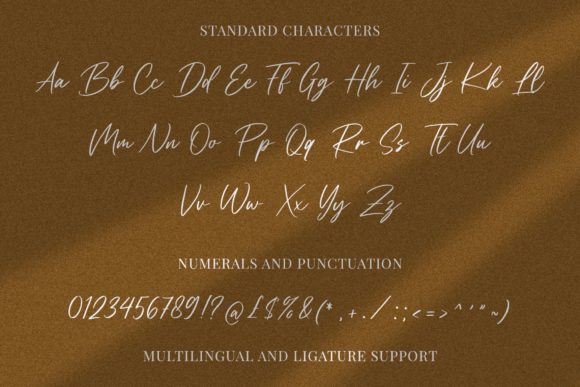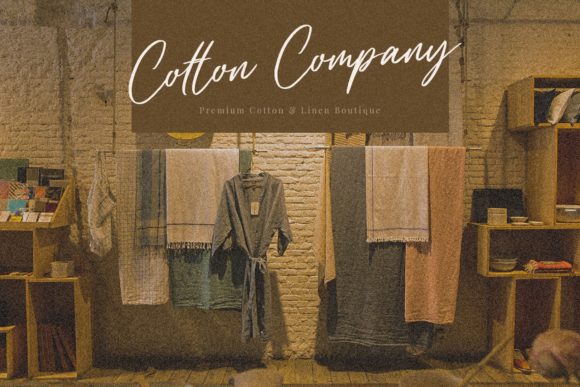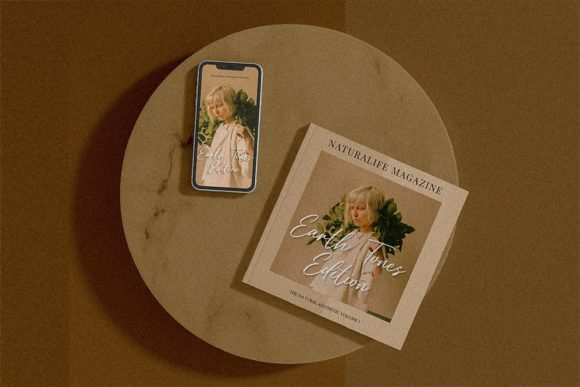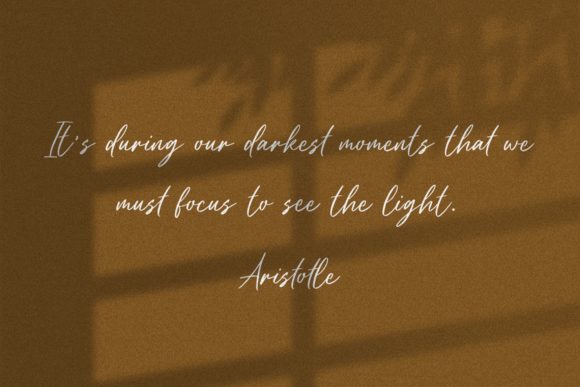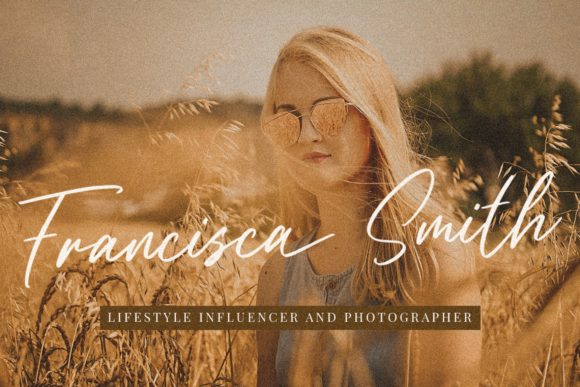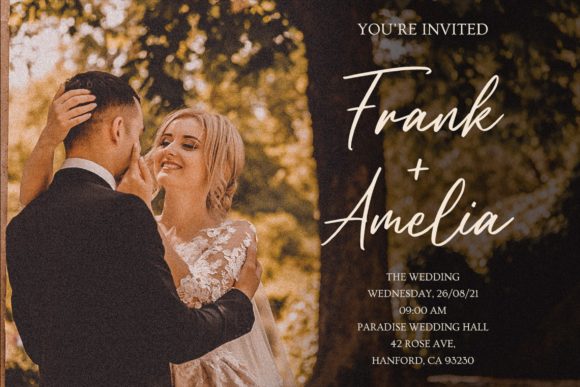
Billy Holiday Font: Elevate Your Designs with Elegance and Timeless Style
Are you on the lookout for a font that exudes elegance, sophistication, and a touch of timeless charm? Look no further than the Billy Holiday Font. This stunning, thin, and elegant handwritten font is making waves in the design community, and for good reason. Its unique and versatile style makes it the perfect choice for designers and crafters looking to add a touch of class to their projects.
The Beauty of Billy Holiday Font
Billy Holiday Font is a masterpiece of modern typography. Its thin and delicate lines give it a refined and sophisticated look that’s perfect for a wide range of design applications. From wedding invitations and branding materials to packaging and digital media, this font is sure to impress. Its elegant and cursive style evokes a sense of nostalgia and romance, making it ideal for designs that require a touch of whimsy and charm.
What Sets Billy Holiday Font Apart
So, what makes Billy Holiday Font stand out from the crowd? Here are just a few reasons why designers and crafters are falling in love with this beautiful font:
- Unique and Timeless Style: Billy Holiday Font boasts a completely different and timeless style that’s sure to set your designs apart. Its elegant and refined look is reminiscent of classic typography, yet it feels fresh and modern.
- Versatility: This font is incredibly versatile, making it perfect for a wide range of design applications. Use it for headings, body text, or even as a decorative element to add a touch of elegance to your designs.
- Elegance and Sophistication: Billy Holiday Font exudes elegance and sophistication, making it perfect for designs that require a touch of refinement and luxury.
How to Use Billy Holiday Font in Your Designs
Using Billy Holiday Font in your designs is easy. Here are a few tips to get you started:
- Pair it with Bold Fonts: Pair Billy Holiday Font with bold and chunky fonts to create a striking contrast that adds visual interest to your designs.
- Use it for Headings and Titles: Use Billy Holiday Font for headings and titles to add a touch of elegance and sophistication to your designs.
- Add Decorative Elements: Use Billy Holiday Font as a decorative element to add a touch of whimsy and charm to your designs.
Why Designers and Crafters Love Billy Holiday Font
Designers and crafters love Billy Holiday Font for many reasons. Here are just a few:
- Easy to Read: Despite its thin and delicate lines, Billy Holiday Font is incredibly easy to read, making it perfect for body text and other applications where legibility is key.
- Highly Versatile: This font is highly versatile, making it perfect for a wide range of design applications.
- Unique and Timeless Style: Billy Holiday Font boasts a unique and timeless style that’s sure to set your designs apart.
In conclusion, Billy Holiday Font is a stunning, thin, and elegant handwritten font that’s perfect for designers and crafters looking to add a touch of elegance and sophistication to their designs. Its unique and timeless style, versatility, and ease of use make it a must-have for anyone looking to elevate their designs to the next level. So why wait? Fall in love with Billy Holiday Font and start creating beautiful designs today!
- Thin and elegant handwritten font
- Unique and timeless style
- Highly versatile
- Easy to read
- Perfect for a wide range of design applications